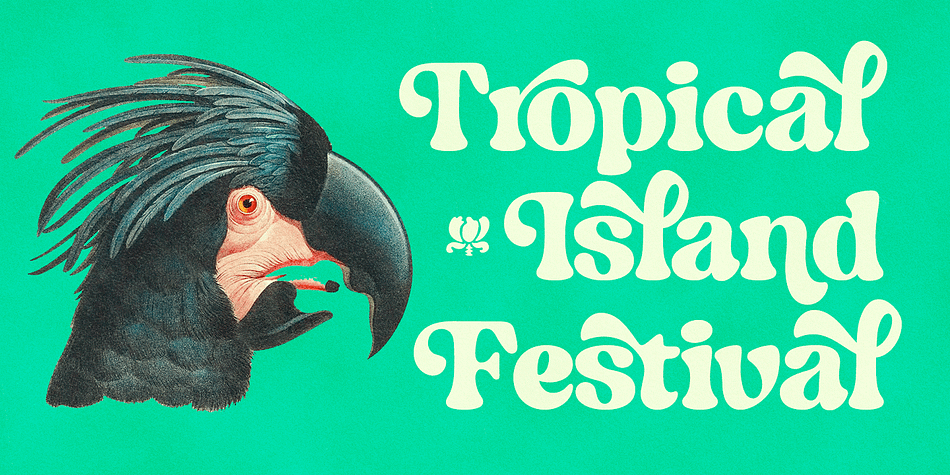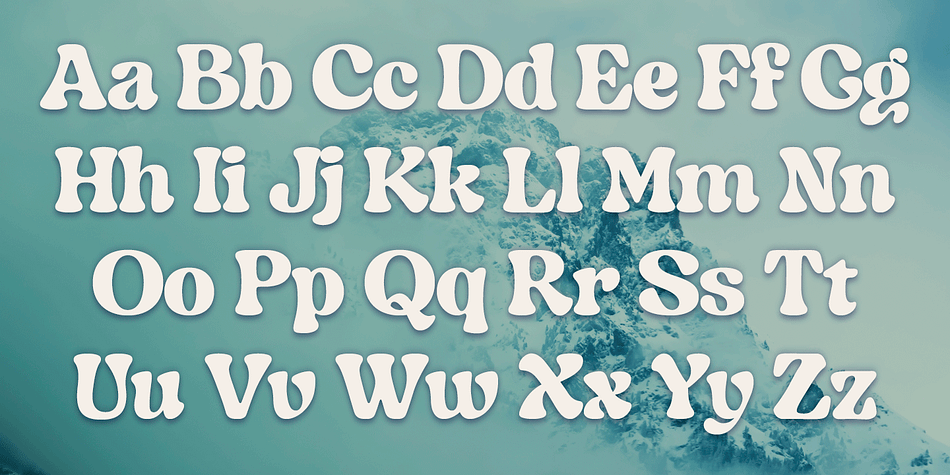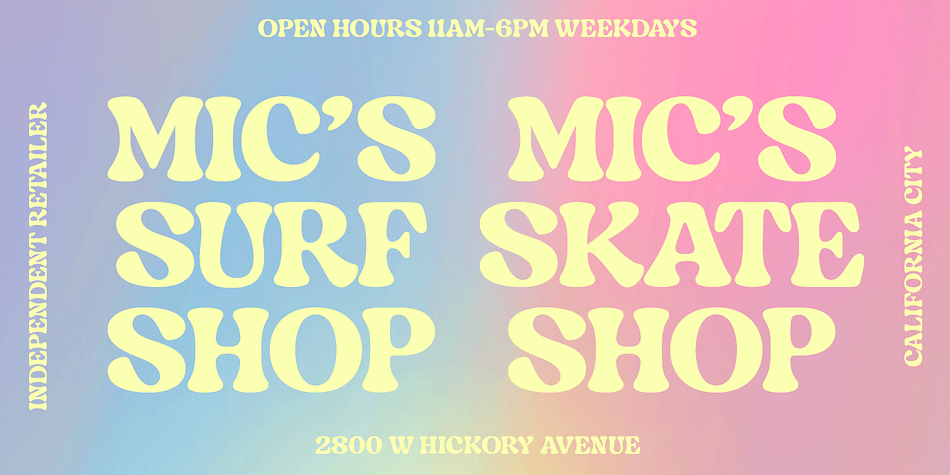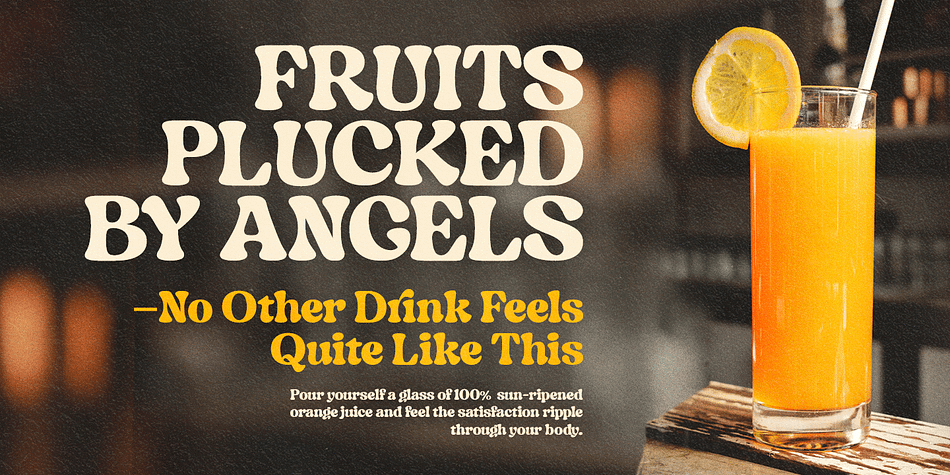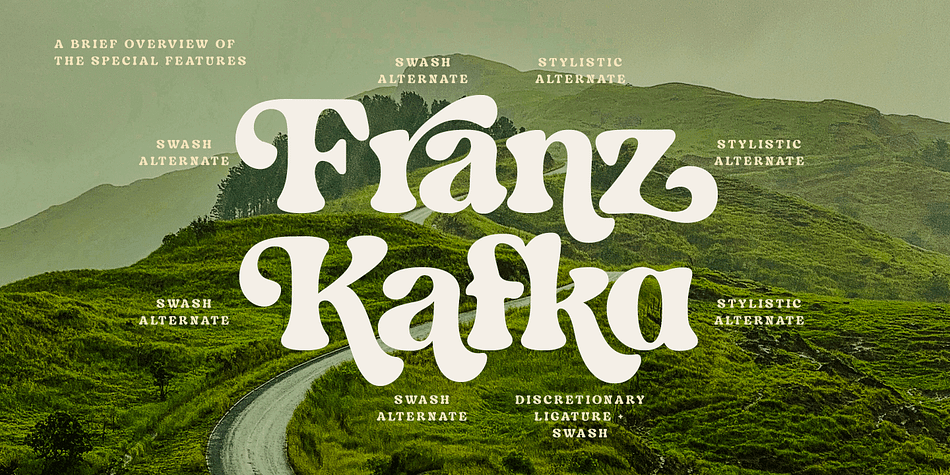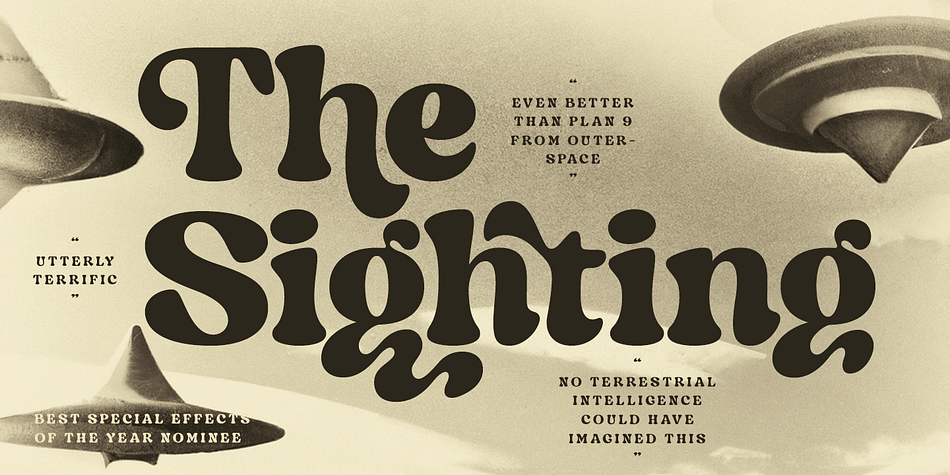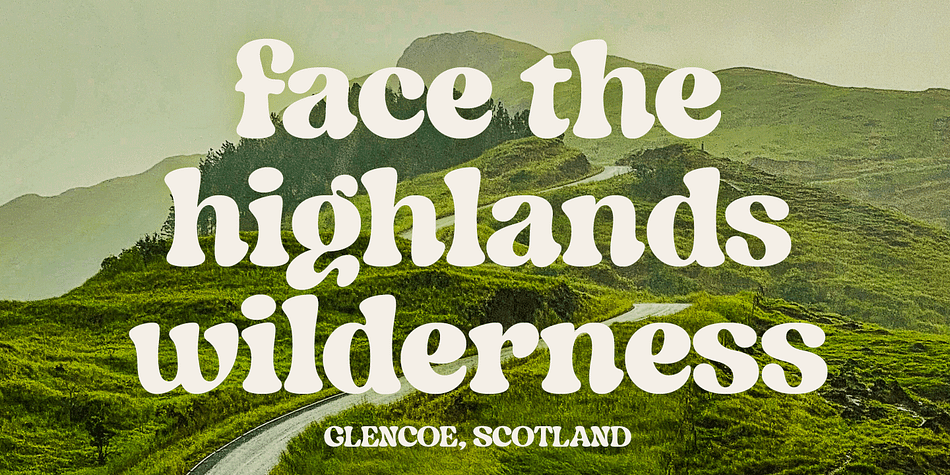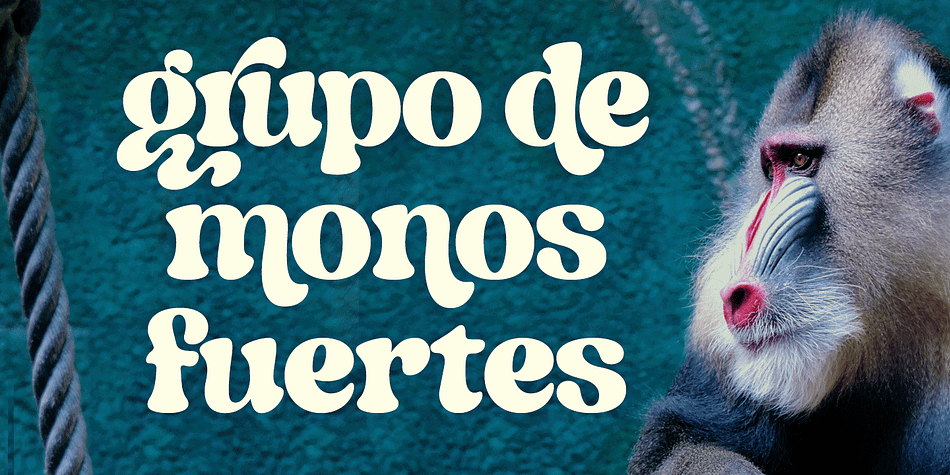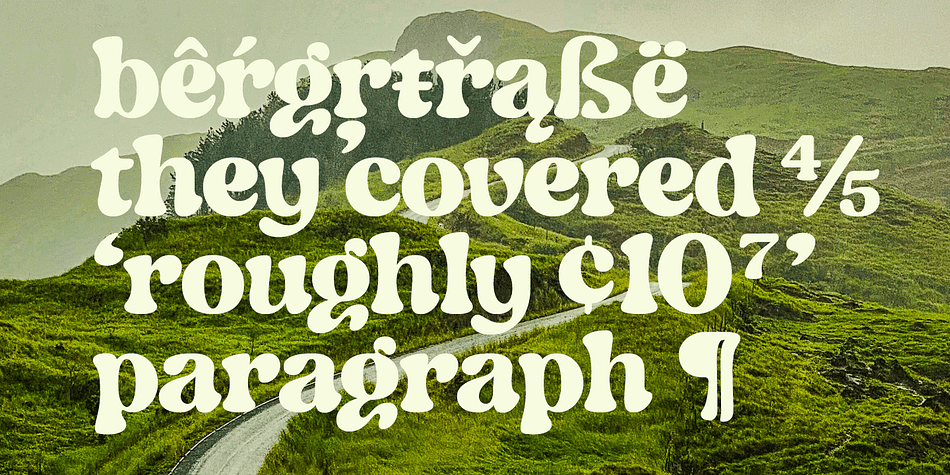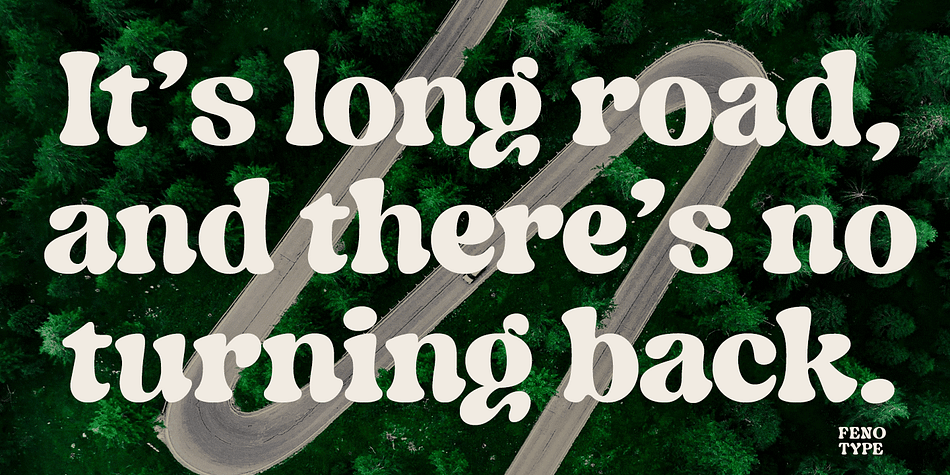
Indigo Sky
Designed by Emil Bertell, Indigo Sky is a display serif and retro font family published by Fenotype.
Indigo Sky is a bold and plush rounded serif with plenty of nostalgia and a touch of psychedelia. With its large x-height and wide characters Indigo Sky makes striking headlines taking over the space. Indigo Sky is great for any display use from posters to products and from online to print.
Indigo sky is equipped with large arsenal of OpenType features - Try Swash, Stylistic or Titling Alternates for less conventional letterforms. Turn on Discretionary Ligatures for ck, sk, ri or rj -ligatures. Keep on Standard Ligatures to prevent f colliding poorly on other letters. Try combining Discretionary Ligatures and Swash for special versions of ck, sk, fk or fh -ligatures.